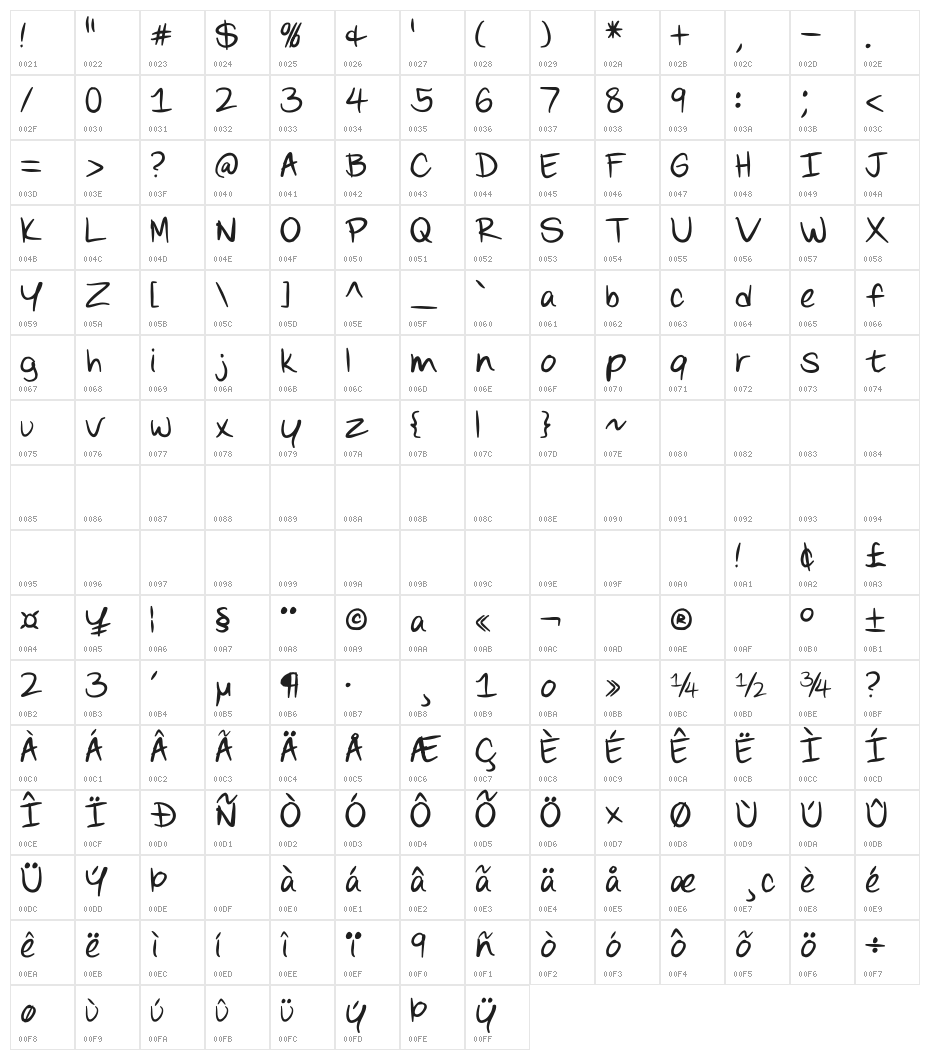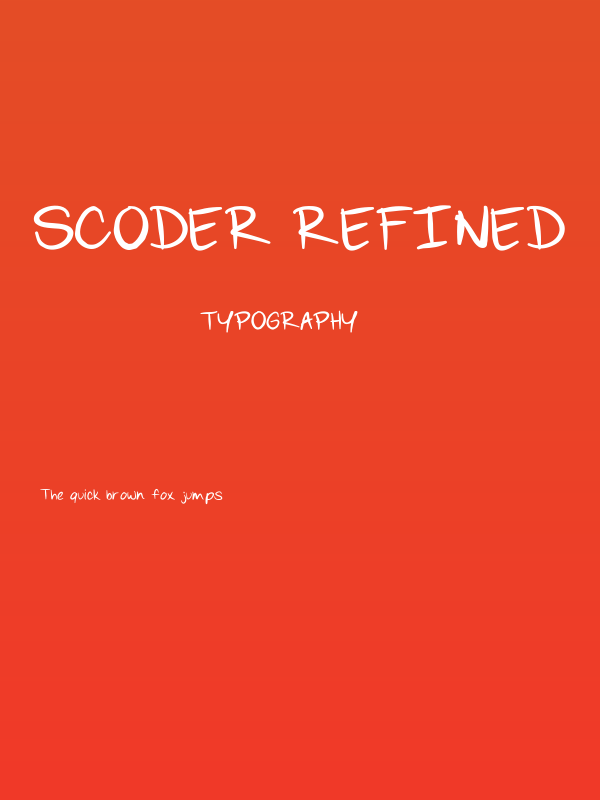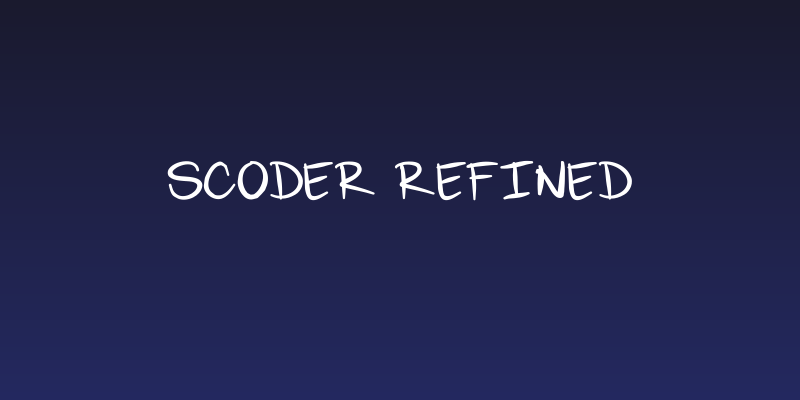
Scoder Refined Font
Scoder Refined Description
This font features a playful and casual handwritten style, characterized by its smooth, flowing lines and slightly irregular shapes. The uppercase letters are bold and confident, while the lowercase letters maintain a consistent, friendly appearance. The numerals are clear and easy to read, matching the overall informal tone. Special characters are well-integrated, maintaining the font's cohesive look. The strokes are moderately thick, providing good legibility without sacrificing the handwritten charm. This font exudes a sense of approachability and creativity, making it suitable for a variety of informal and creative applications.
| Overall Style | Casual, Playful |
| Use Case | Headlines, Logos, Informal Text |
| Proposed Projects | Ideal for greeting cards, invitations, personal branding, and creative projects. |